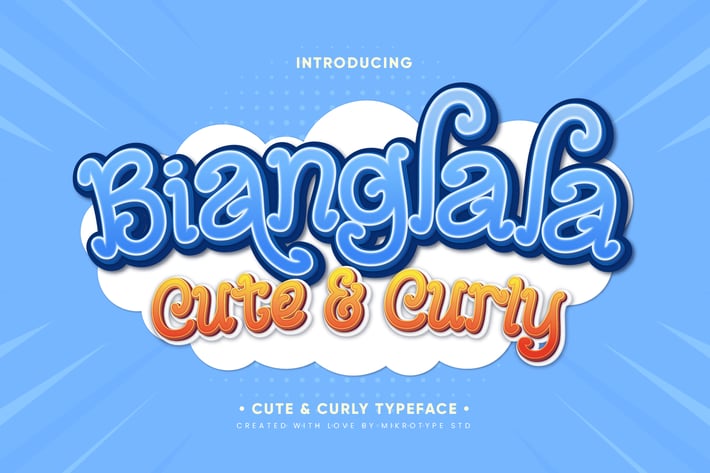
Bianglala Cute Business Font
Introducing Bianglala - A cute & curly typeface made with love, resulting in cute & adorable fonts. With its unique shape makes this font different from the others. The font is perfect for for movie title, logo, blogging, brand identity, book title, social media, branding, wedding invites, cards or simply use it in your next design project and suitable to use for many occasion.
- Swashes
- Multilingual Characters support for;Afrikaans, Albanian, Czech, Danish, Dutch, English, Estonian, Finnish, French, Hungarian, Italian, Latvian, Lithuanian, Norwegian, Polish, Portugese, Slovak, Slovenian, Spanisch, Swedish, Turkish.